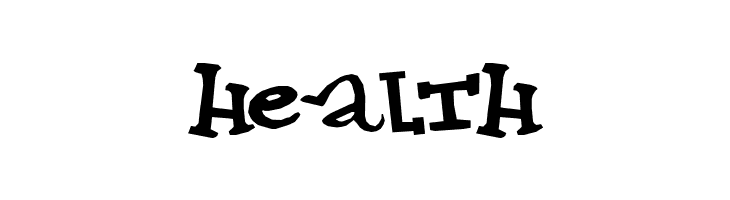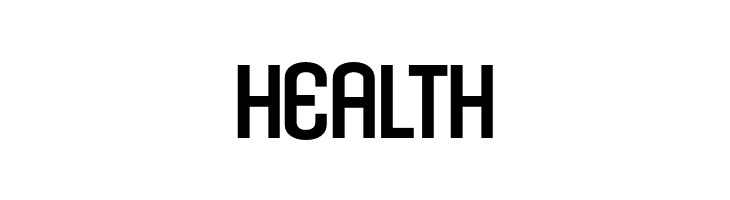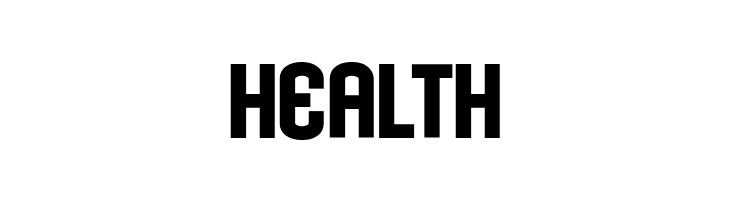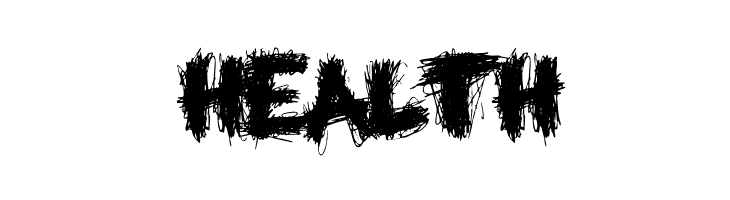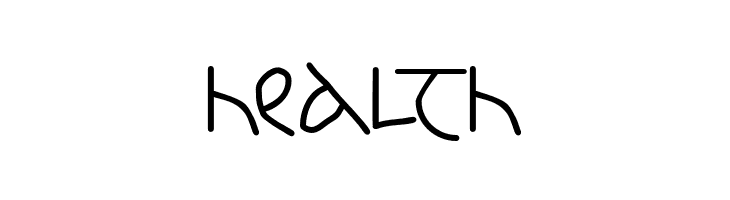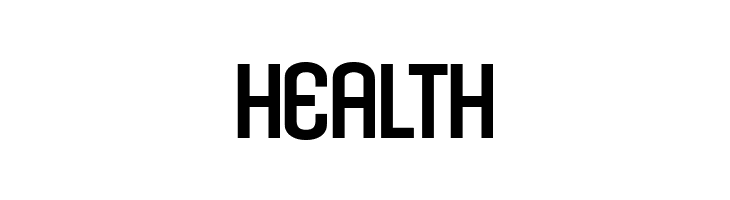
• KleptocracyTitlingLt-Regular
( Typodermic Fonts - Ray Larabie - www.typodermicfonts.com/ )
A modern, geometric font with clean lines and uniform stroke width.
• KleptocracyTitlingLt-Regular
A modern, geometric font with clean lines and a structured appearance.
• KleptocracyTitlingRg-Bold
( Typodermic Fonts - Ray Larabie - www.typodermicfonts.com/ )
A bold, geometric font with high contrast and a modern aesthetic.
• KleptocracyTitlingRg-Bold
A bold, geometric font with uniform strokes and tight spacing, ideal for headlines.
• KleptocracyTitlingRg-Regular
( Typodermic Fonts - Ray Larabie - www.typodermicfonts.com/ )
A bold, modern font with a geometric and smooth design.
• KleptocracyTitlingRg-Regular
A bold, modern, and geometric font with a condensed structure.
• Knife Fight
( Fonts by www.sweeep.fr - Damien Gosset )
A bold, chaotic font with a rough, hand-drawn appearance.
• KochRootsRoundBold
A bold, rounded font with a playful, hand-drawn style.
• Konfekt
A playful and whimsical font with irregular, hand-drawn letterforms.